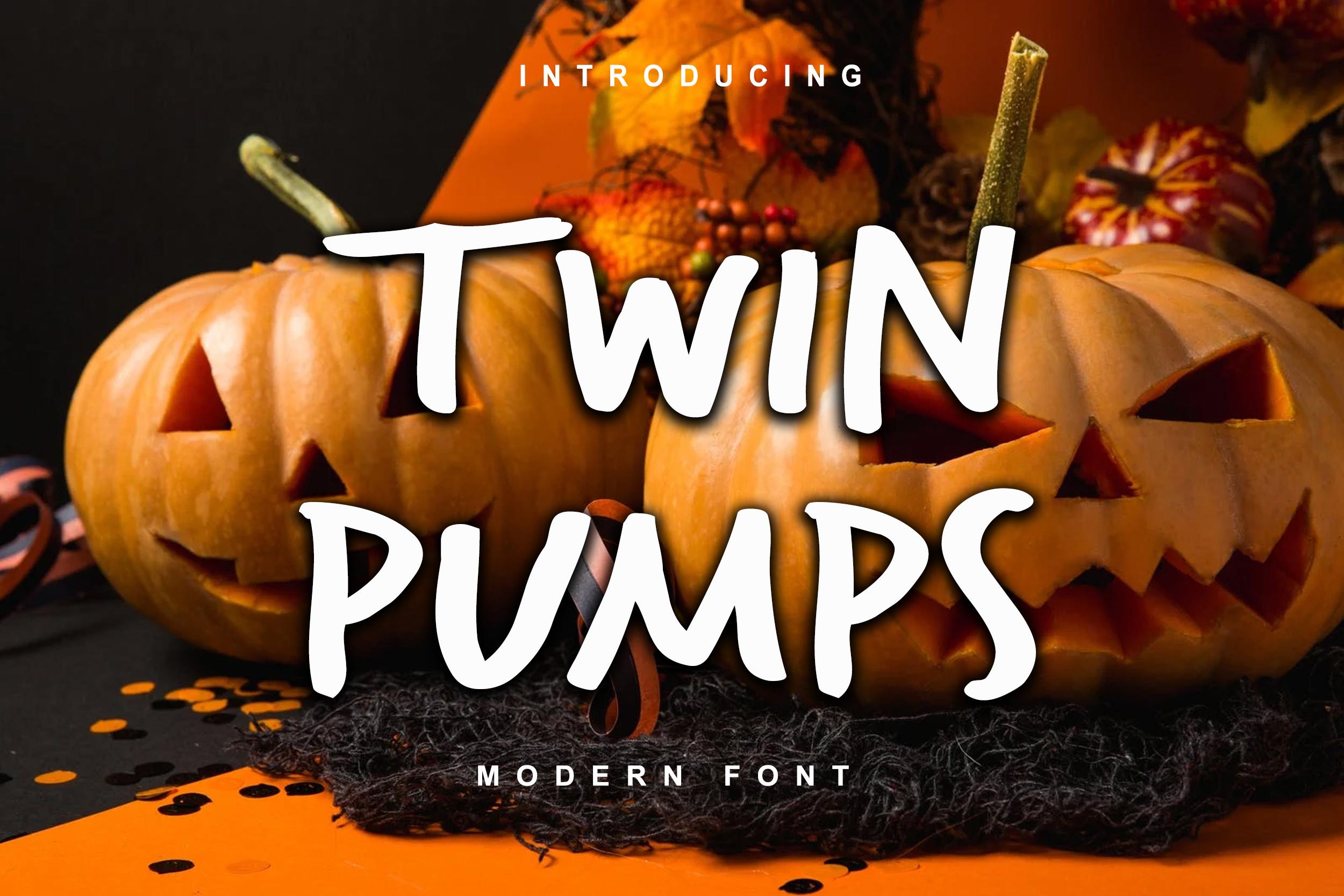
- This Font Is A Fresh And Beautiful Font
- Good For Your Design Purposes Such As Youtube Banners
- Cover Logo Mockups
- Wedding Invitations
- Id Cards
- Flayer
- Crafts. By Using This Font Your Business Will Progress And Develop. Apart From That This Font Is Simple And Unique.